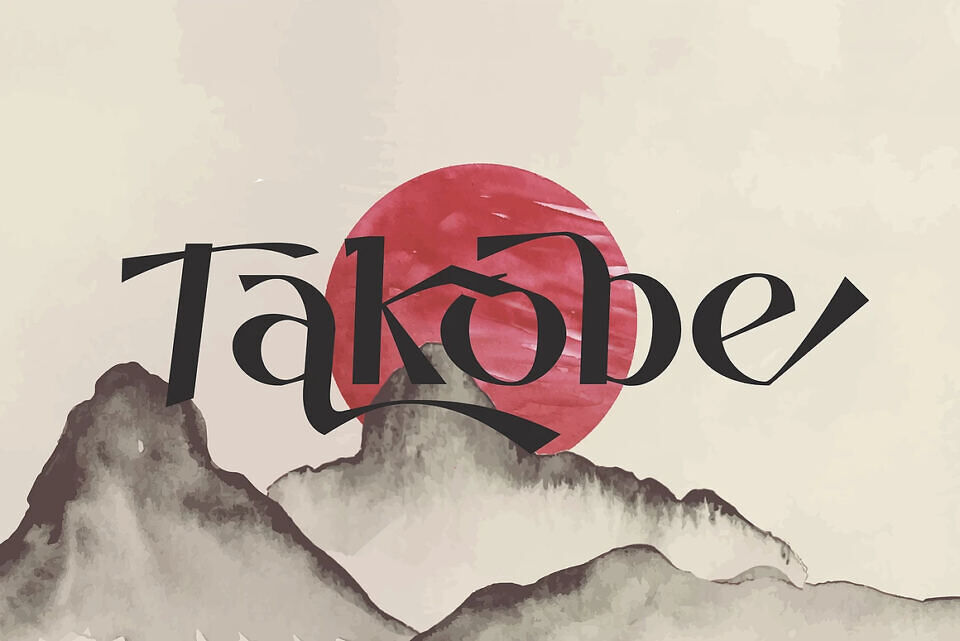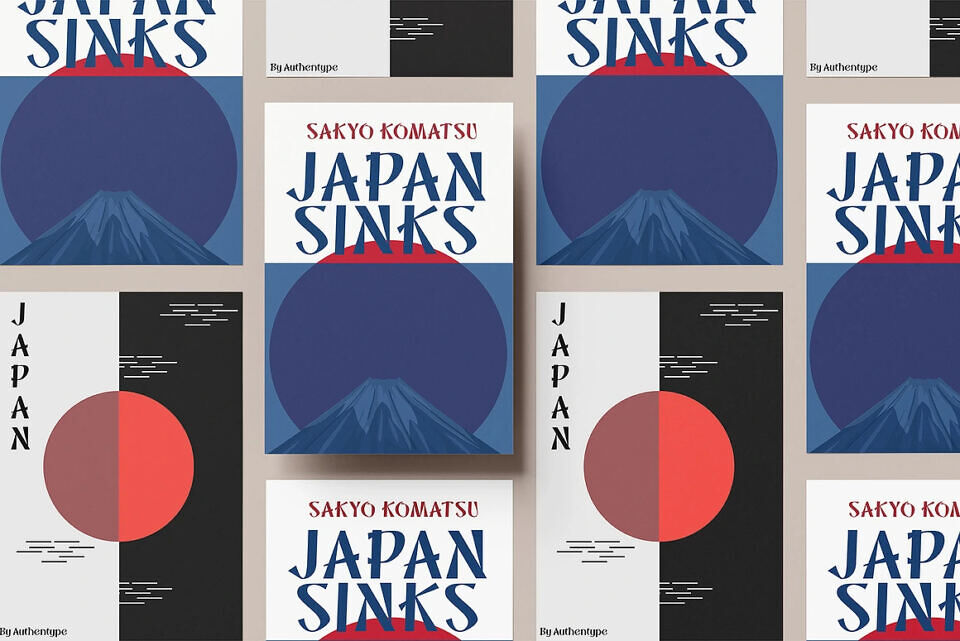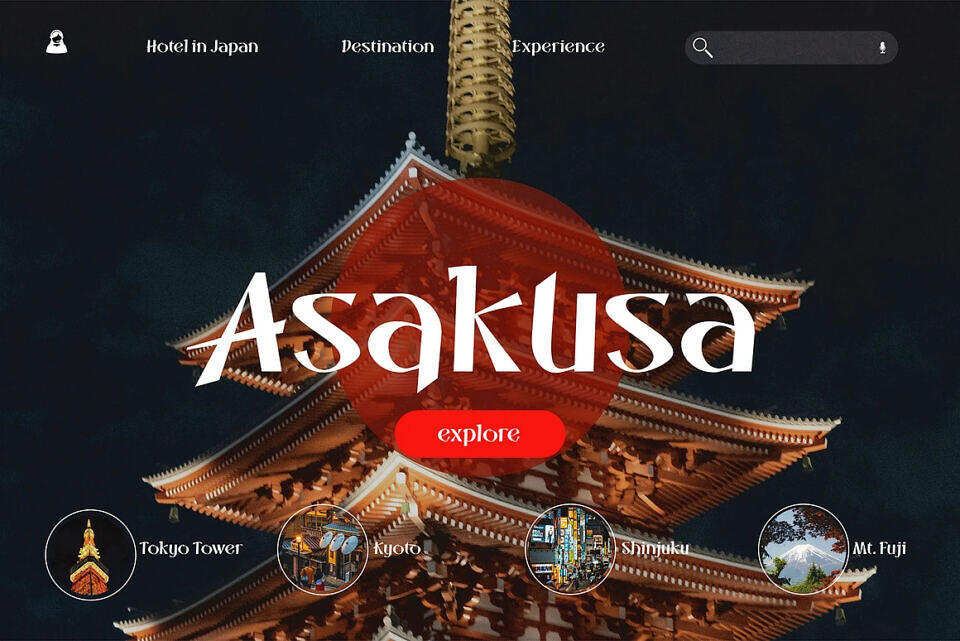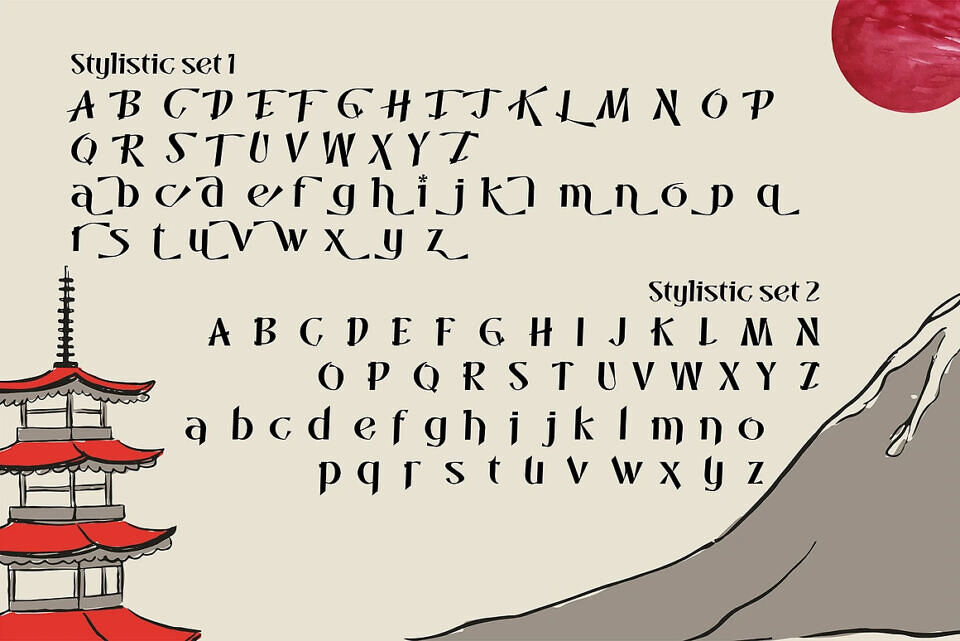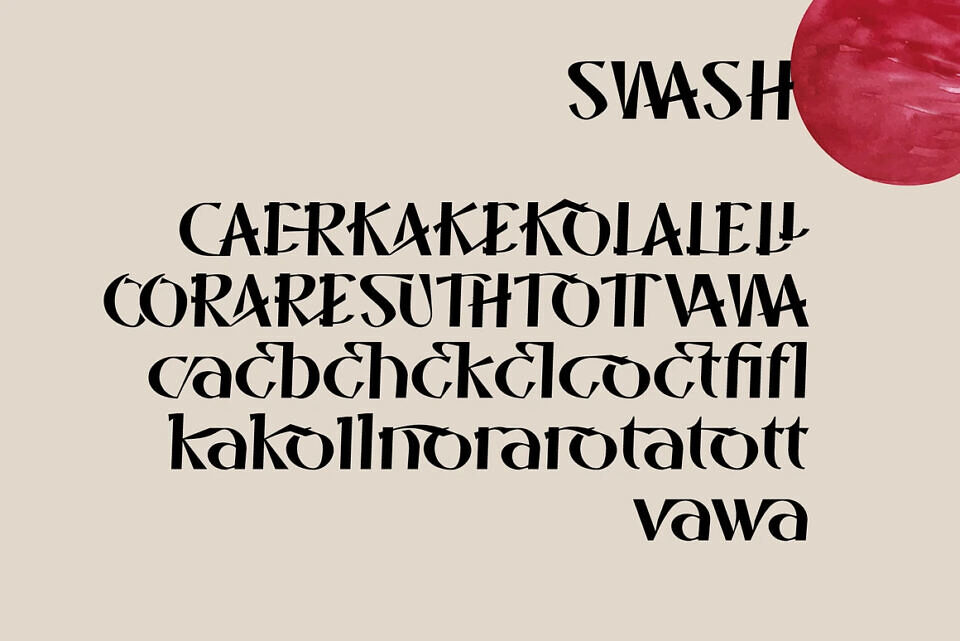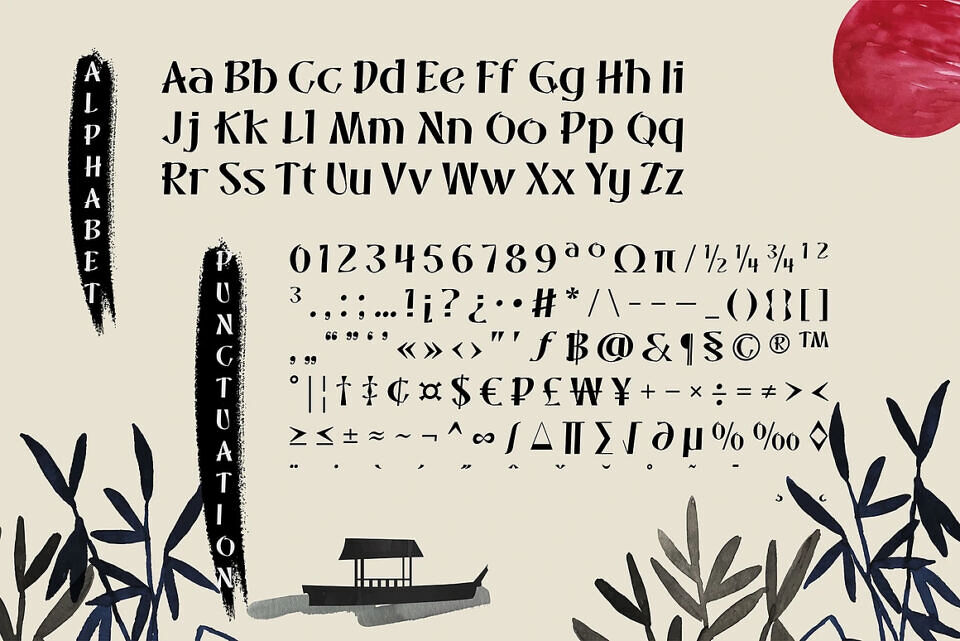
Takobe blends traditional Japanese flair with modern style, reimagining classic characters in a bold, contemporary way. Its strong geometric lines and balanced design evoke the harmony and fluid motion of Japanese calligraphy, creating a unique visual experience.
Perfect for posters, branding, packaging, and digital media, Takobe font brings a cultural and artistic touch to any project. With its clean forms and distinctive characters, this font is ideal for designers seeking a unique, Japanese-inspired look that stands out.